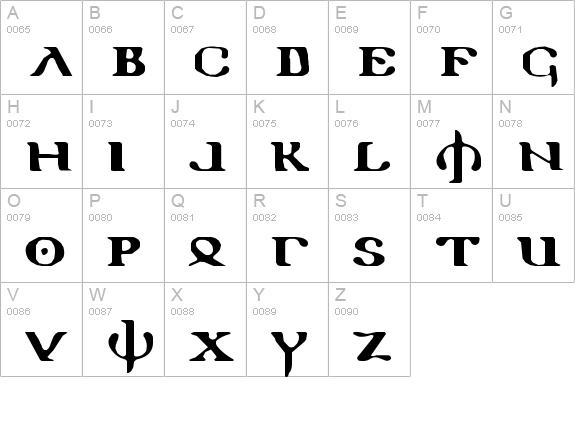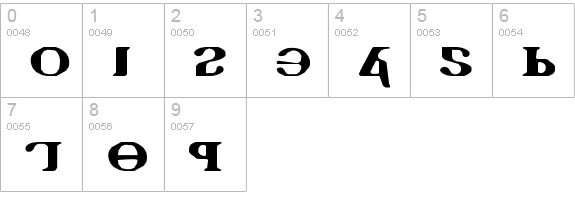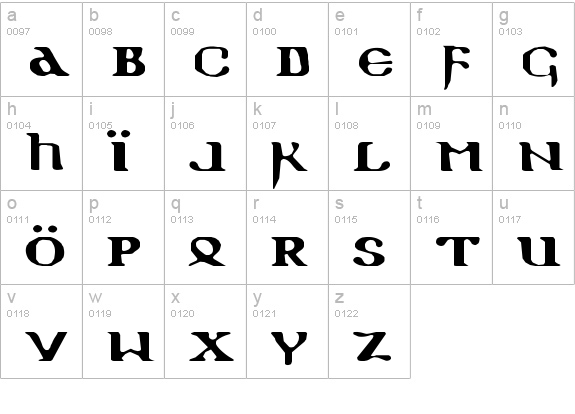
Holy Empire Expanded Font Details
Holy Empire Expanded is a distinctive, extended-width variant in the Holy typeface family \xE2\x80\x94 well suited to design and typography projects.
Holy Empire Expanded font is an elegant and versatile typeface that exudes a sense of grandeur and sophistication. With its elongated and sharp letterforms, this font makes a bold statement while maintaining a sense of refinement. Whether used for titles, headings, or body text, Holy Empire Expanded adds a touch of class to any design project. In addition to its striking appearance, Holy Empire Expanded font is also incredibly versatile, making it suitable for a wide range of applications. From editorial design to branding to web design, this font is sure to elevate your projects to the next level. The best part? Holy Empire Expanded font is available for free download at FontsMarket.com. So go ahead and give this stunning typeface a try - you won't be disappointed!